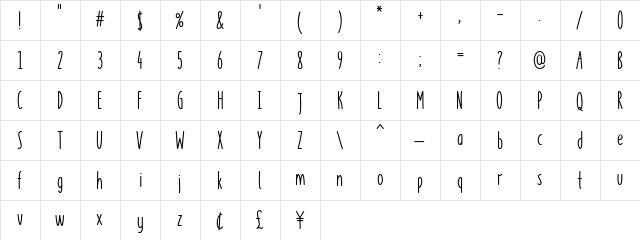
KEY LIME Demo Regular
Design Context for KEY LIME Demo Typeface
KEY LIME Demo is a composed and adaptable typeface that performs quietly and consistently across a wide range of design contexts.